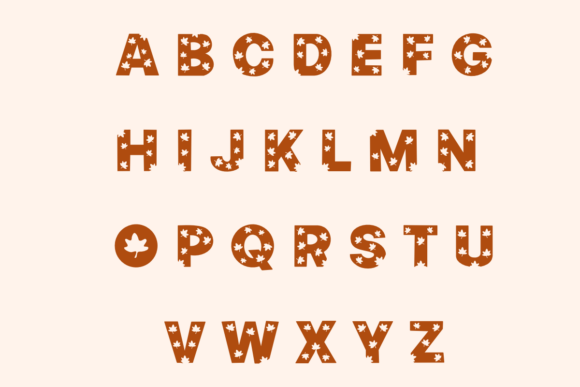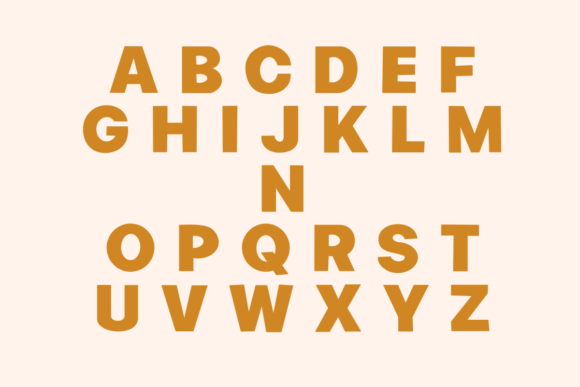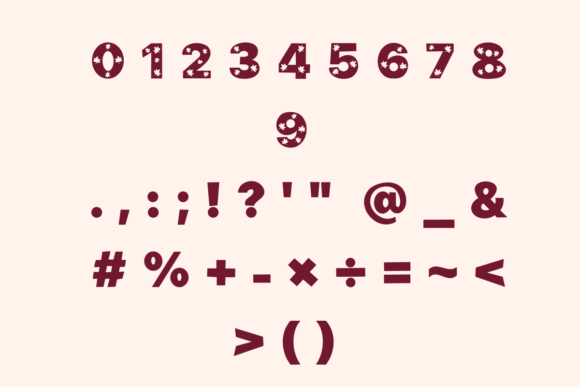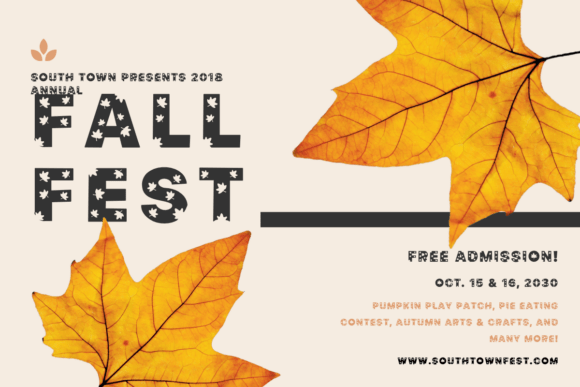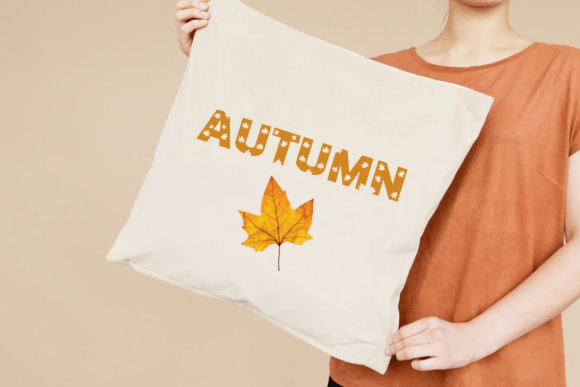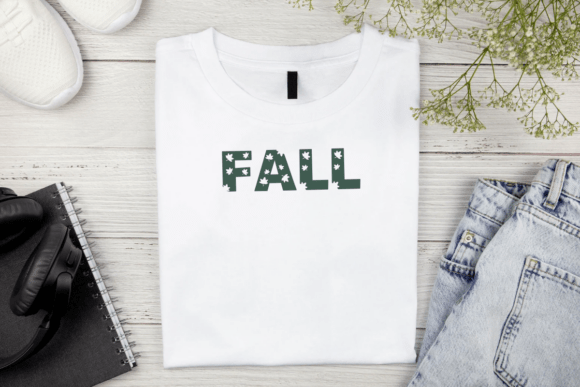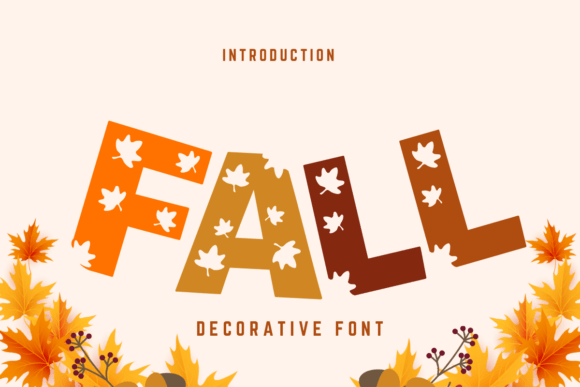
Introducing Fall Font: The Cozy Seasonal Decorative Font
As the leaves change colors and the air grows crisper, designers and crafters alike start looking for inspiration to capture the cozy vibes of autumn. That’s where Fall Font comes in – a bold, decorative font that’s perfect for creating seasonal designs that evoke the warmth and playfulness of the fall season.
What is Fall Font?
Fall Font is a unique, hand-crafted font that’s inspired by the beauty of autumn. Each letter is creatively filled with playful falling leaves, giving it a distinctive and eye-catching look. The font is designed to be bold and attention-grabbing, making it perfect for a variety of design projects, from posters and social media graphics to event flyers and Thanksgiving crafts.
Key Features of Fall Font
- Unique Leaf Design: Each letter is filled with playful falling leaves, creating a one-of-a-kind look that’s sure to stand out.
- Bold and Decorative: Fall Font is designed to be bold and attention-grabbing, making it perfect for creating eye-catching designs.
- Seasonal Inspiration: The font is inspired by the cozy vibes of autumn, making it perfect for seasonal designs and projects.
- Versatile: Fall Font can be used for a variety of design projects, from posters and social media graphics to event flyers and Thanksgiving crafts.
Uses for Fall Font
Fall Font is perfect for designers and crafters looking to add a touch of autumnal charm to their projects. Here are some ideas for using Fall Font:
- Seasonal Posters: Create eye-catching posters for fall events, such as harvest festivals, pumpkin patches, or apple picking.
- Social Media Graphics: Use Fall Font to create engaging social media graphics that capture the cozy vibes of autumn.
- Event Flyers: Design festive flyers for fall events, such as Halloween parties or Thanksgiving gatherings.
- Thanksgiving Crafts: Use Fall Font to create handmade Thanksgiving crafts, such as cards, gift tags, or decorations.
Tips for Using Fall Font
Here are some tips for getting the most out of Fall Font:
- Experiment with Colors: Try pairing Fall Font with warm autumnal colors, such as orange, yellow, and red, to create a cozy and inviting look.
- Play with Texture: Add texture to your designs by combining Fall Font with natural textures, such as wood or burlap.
- Keep it Simple: Don’t be afraid to keep your design simple and let Fall Font be the star of the show.
Fall Font is a unique and versatile decorative font that’s perfect for designers and crafters looking to capture the cozy vibes of autumn. With its bold, playful design and seasonal inspiration, Fall Font is sure to add a touch of autumnal charm to any project. Whether you’re creating posters, social media graphics, event flyers, or Thanksgiving crafts, Fall Font is the perfect choice.